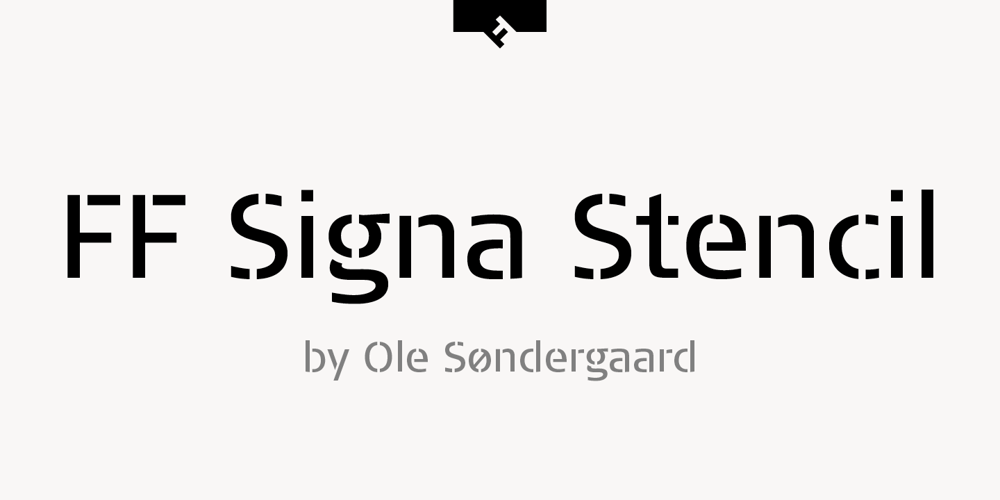
FF Signa Stencil Font Family was designed by Ole Berntsen Søndergaard and published by FontFont. FF Signa Stencil contains 3 styles and family package options. Danish type designer Ole Søndergaard created this display FontFont in 2011. The family contains 3 weights: Book, Bold, and Black and is ideally suited for advertising and packaging, film and tv as well as music and nightlife. FF Signa Stencil provides advanced typographical support with features such as ligatures, alternate characters, case-sensitive forms, fractions, super- and subscript characters, and stylistic alternates. It comes with a complete range of figure set options – oldstyle and lining figures, each in tabular and proportional widths. As well as Latin-based languages, the typeface family also supports the Cyrillic writing system. This FontFont is a member of the FF Signa super family, which also includes FF Signa, FF Signa Correspondence, FF Signa Serif, and FF Signa Serif Stencil.